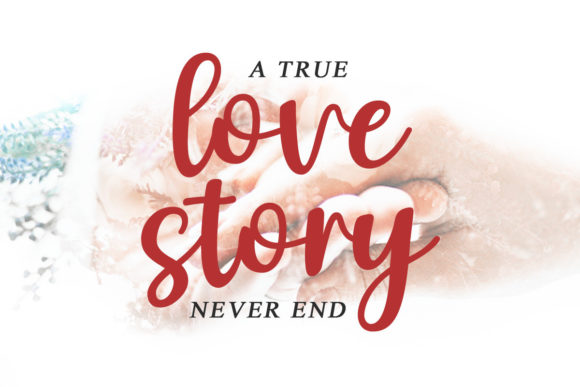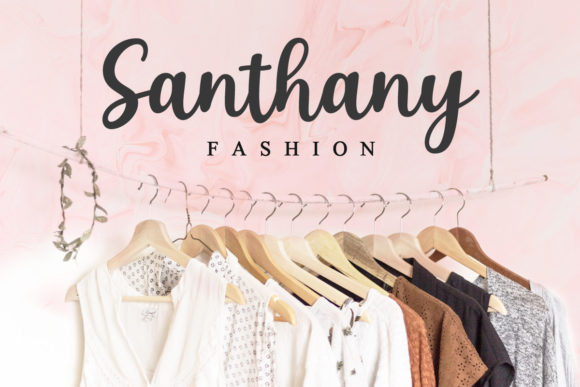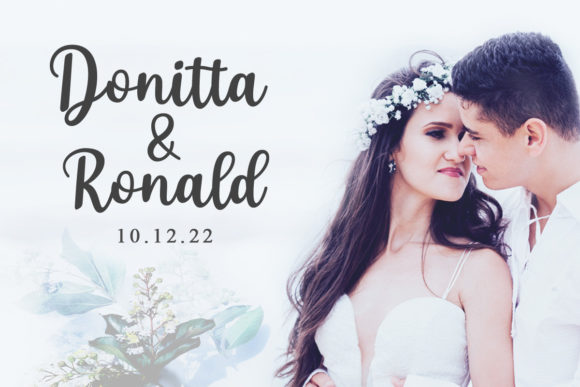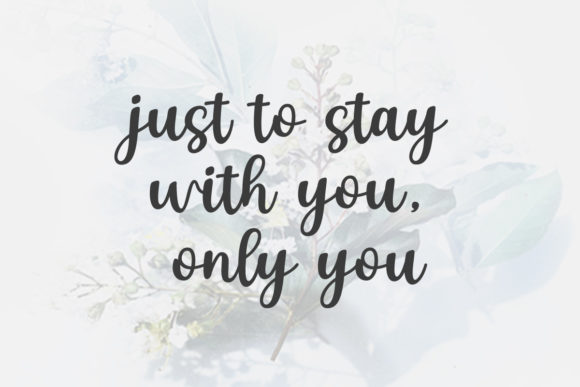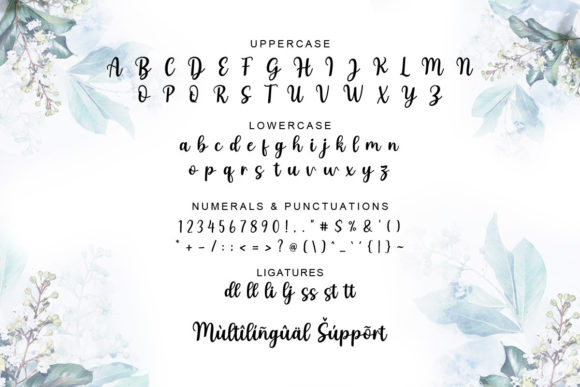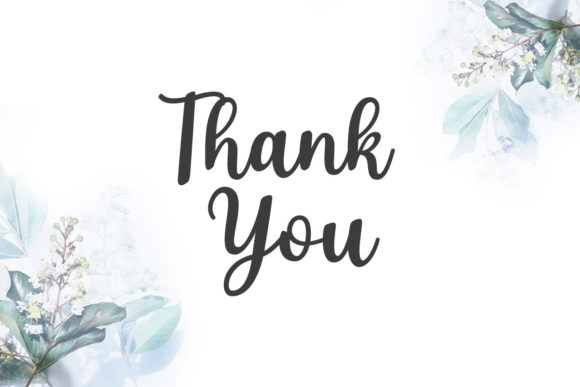
Austaly Font: Elevate Your Designs with a Touch of Modern Handwritten Elegance
In the world of typography, a font can make or break a design. For designers and crafters looking to add a personal touch to their projects, Austaly Font is a game-changer. This beautiful and modern handwritten font is designed to bring a sense of fun and uniqueness to any design. Whether you’re working on branding projects, logos, social media posts, wedding designs, advertisements, product packaging, watermarks, invitations, stationery, or any other project that requires a handwriting taste, Austaly Font is the perfect choice.
What Makes Austaly Font Special?
Austaly Font stands out from the crowd with its fun characters and unique characteristics. Its modern handwritten style is both elegant and approachable, making it versatile enough to be used in a wide range of applications. The font’s design is carefully crafted to ensure that it looks great in any context, from digital platforms to print materials.
Designers and crafters are always on the lookout for fonts that can help them create unique and engaging designs. Austaly Font is designed with them in mind. Its modern handwritten style makes it perfect for:
- Branding Projects: Create a lasting impression with a font that reflects your brand’s personality.
- Logos: Stand out from the competition with a unique and memorable logo.
- Social Media Posts: Add a personal touch to your social media content and make it more engaging.
- Wedding Designs: Make your wedding designs, such as invitations and stationery, truly special.
- Advertisements: Grab attention with a font that is both modern and elegant.
- Product Packaging: Elevate your product packaging with a font that reflects your brand’s style.
- Watermark: Add a professional touch to your photos and designs with a custom watermark.
- Invitation: Create beautiful and unique invitations for any occasion.
- Stationery: Add a personal touch to your stationery and make it truly special.
Why Choose Austaly Font?
There are many fonts available, but Austaly Font offers several advantages:
- Unique Design: Austaly Font has a unique and modern handwritten style that sets it apart from other fonts.
- Versatility: It can be used in a wide range of applications, from digital platforms to print materials.
- High-Quality: The font is designed to be high-quality and looks great in any context.
Austaly Font is a beautiful and modern handwritten font that can elevate your designs to the next level. Its unique characteristics and versatility make it perfect for designers and crafters looking to add a personal touch to their projects. Whether you’re working on branding projects, logos, social media posts, or any other design project, Austaly Font is a great choice. With its ease of use and high-quality design, Austaly Font is a must-have for any designer or crafter looking to create engaging and unique designs.